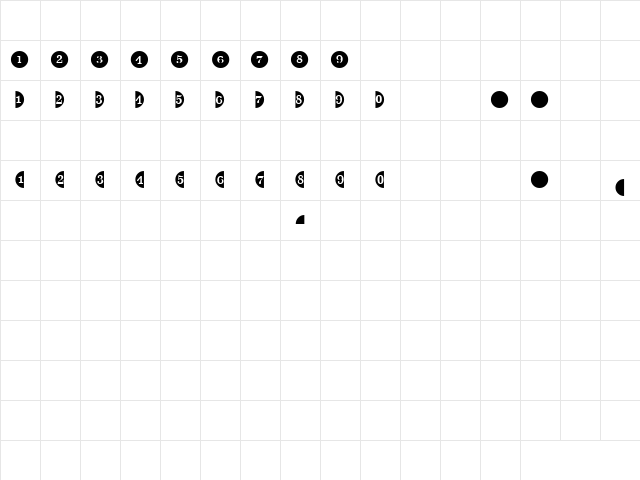
JournalDingbatsFourSSK Regular
Design Context for JournalDingbatsFourSSK Typeface
JournalDingbatsFourSSK is a composed and adaptable typeface that performs quietly and consistently across a wide range of design contexts.